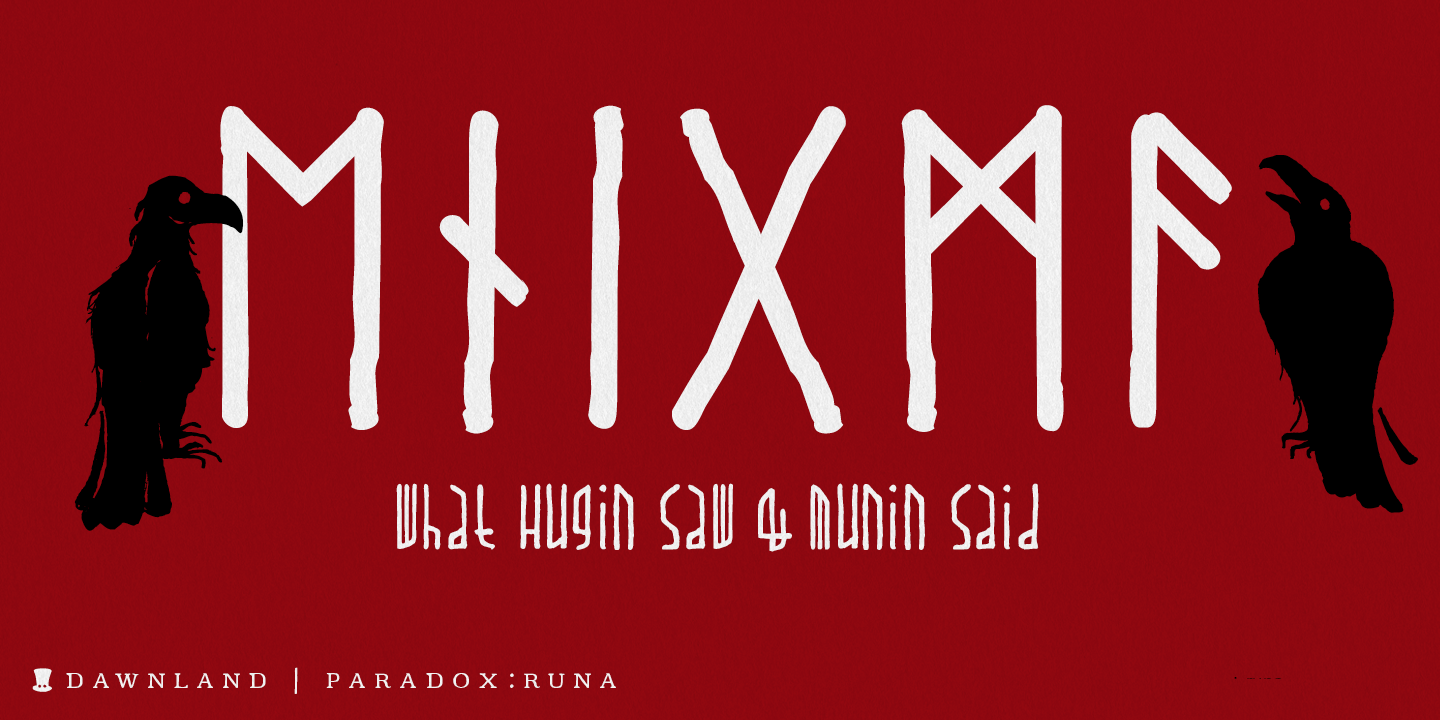
The Paradox Runa Font excels in various design applications including mystical runic branding, ancient Norse cultural materials, fantasy gaming interface designs, esoteric spiritual communications, magical mystery event promotions, Viking heritage museum signage, occult bookstore identities, mystical jewelry packaging, ancient wisdom publication layouts, and enigmatic cultural projects that demand runic mystique and paradoxical sophistication.
What makes the Paradox Runa Font exciting is its mysterious embodiment of ancient wisdom and contradictory symbolism through letterforms that capture the essence of runic mysticism and the profound complexity of paradoxical thinking. This typeface demonstrates exceptional depth through carefully crafted characters that suggest the ancient power of runic inscriptions, the mysterious wisdom of Norse traditions, and the enigmatic beauty that comes from embracing contradictions and finding truth in paradoxical relationships. The font's runic personality makes it perfect for spiritual organizations and fantasy brands seeking to communicate ancient wisdom, mystical authenticity, and the kind of paradoxical depth that creates transformative experiences through typography that literally channels ancient runic power.
The Paradox Runa Font family typically includes mystical weight variations that enhance the runic aesthetic, featuring ancient styling options and extended character sets optimized for spiritual communications and fantasy applications. These family options often include rune-inspired alternates, mystical symbols, and paradoxical decorative elements that provide designers with comprehensive tools for creating authentically mystical typography that celebrates ancient wisdom while maintaining contemporary design appeal and spiritual credibility.
Spiritual professionals and fantasy culture organizations consistently select Paradox Runa Font Free Download for projects requiring typography that communicates runic authenticity and mystical sophistication. This typeface delivers exceptional performance in spiritual marketing, fantasy branding, and mystical communications where establishing ancient credibility and creating enigmatic atmosphere is essential for spiritual connection. The font's paradox character makes it particularly effective for gaming and spiritual applications. Download Paradox Runa Font Free Download today to access this mystically powerful typeface that transforms ancient communications with its runic elegance and paradoxical sophistication, creating compelling spiritual experiences that honor the magnificent wisdom of ancient runes while celebrating the profound mystery that defines authentic mystical culture and spiritual enlightenment.